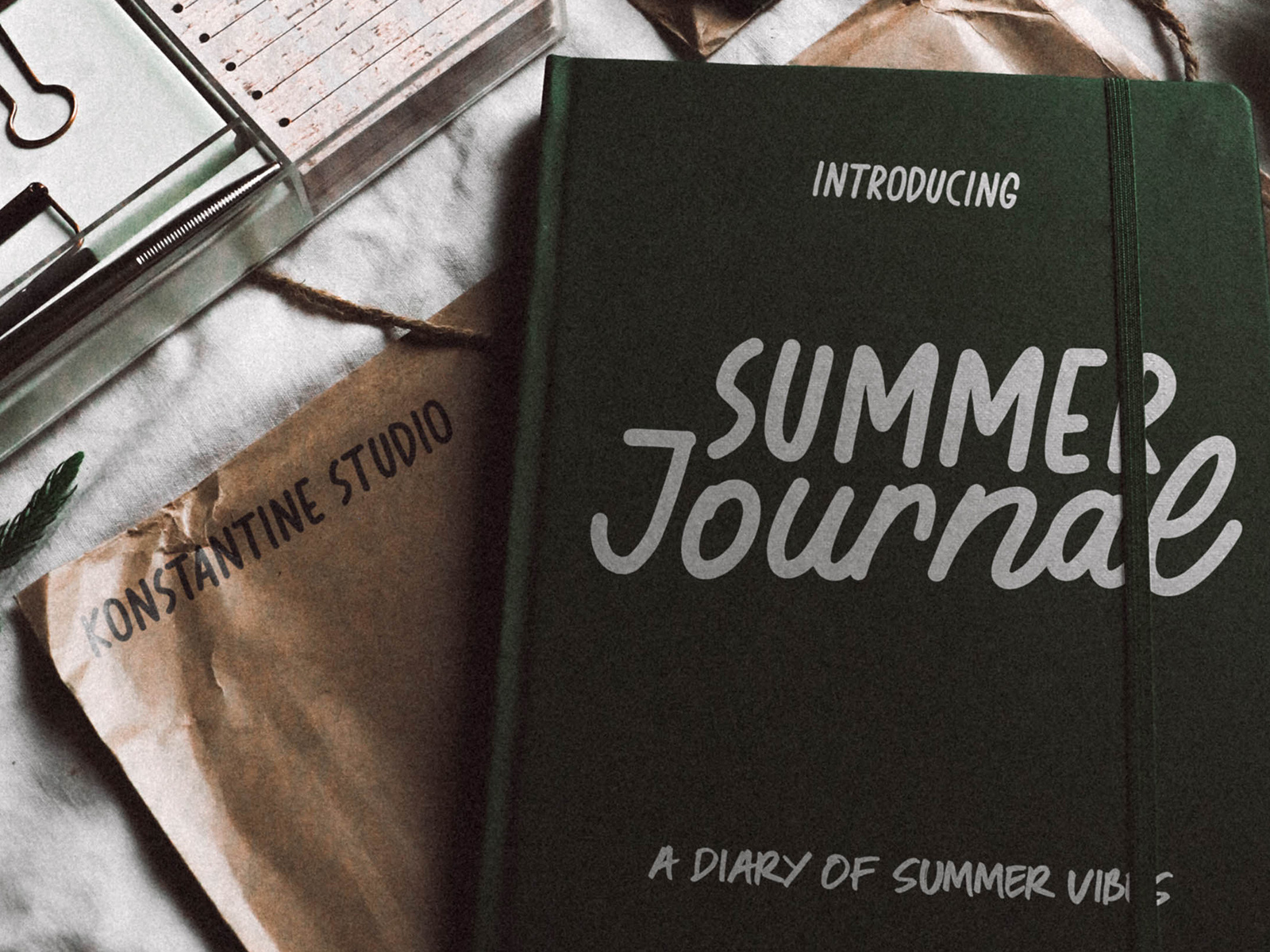
Summer Journal - Scrapbook Fonts
Have you ever thought about making a scrapbook journal digitally? now it can be real with our latest font called Summer Journal.
Inspired by the journal and scrapbook concept that happening nowadays. Some people make it as a visual diary so it could have some personal-attached emotion between you and your scrapbook journal.